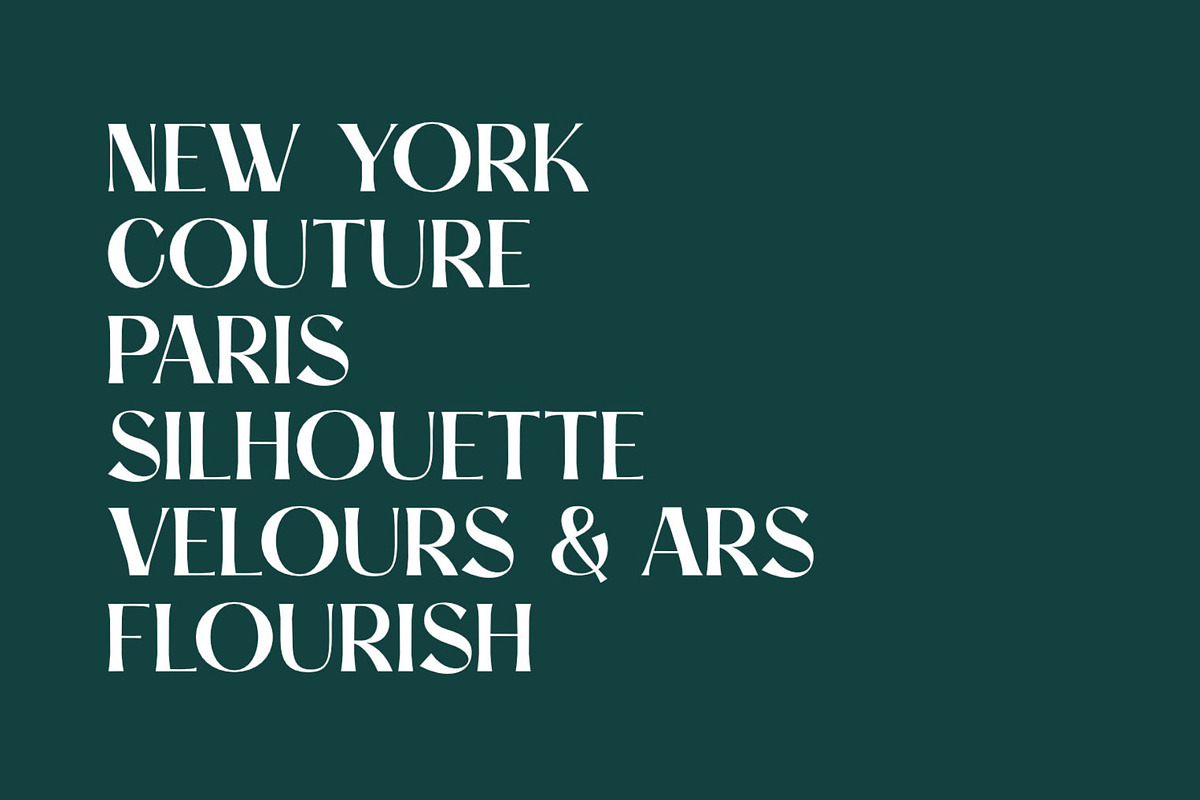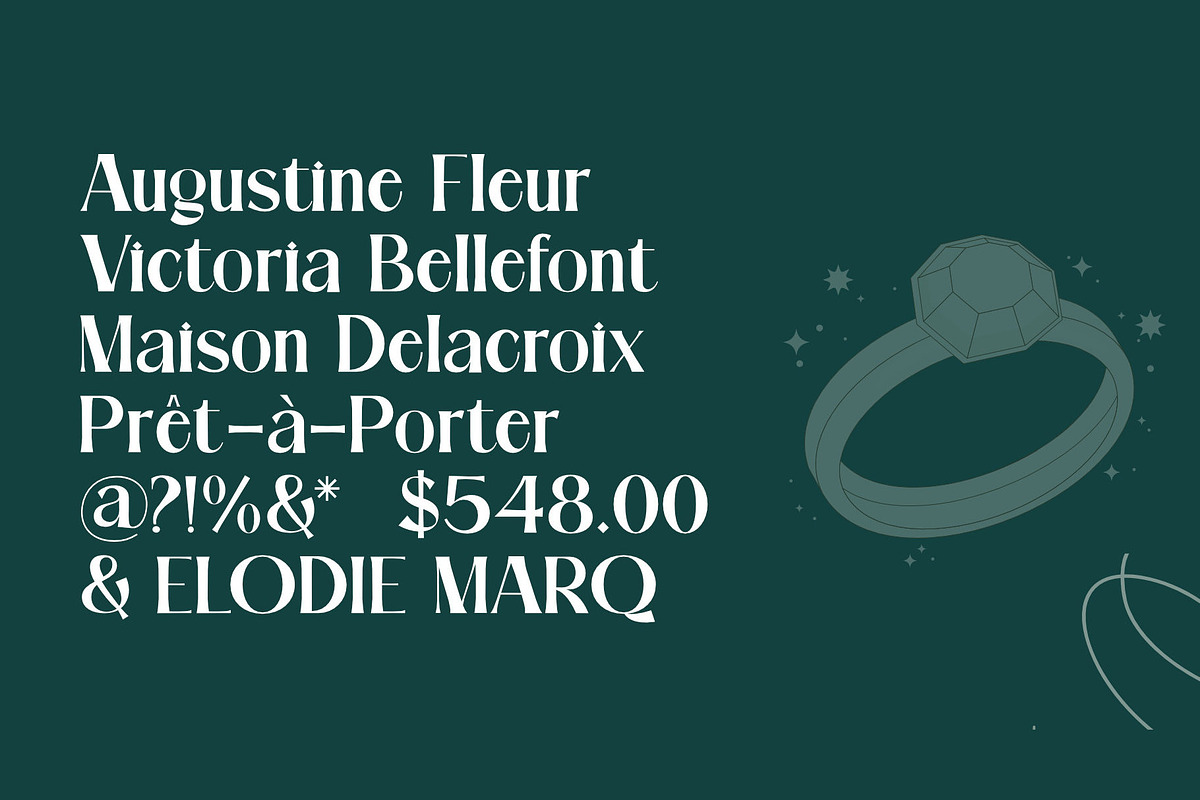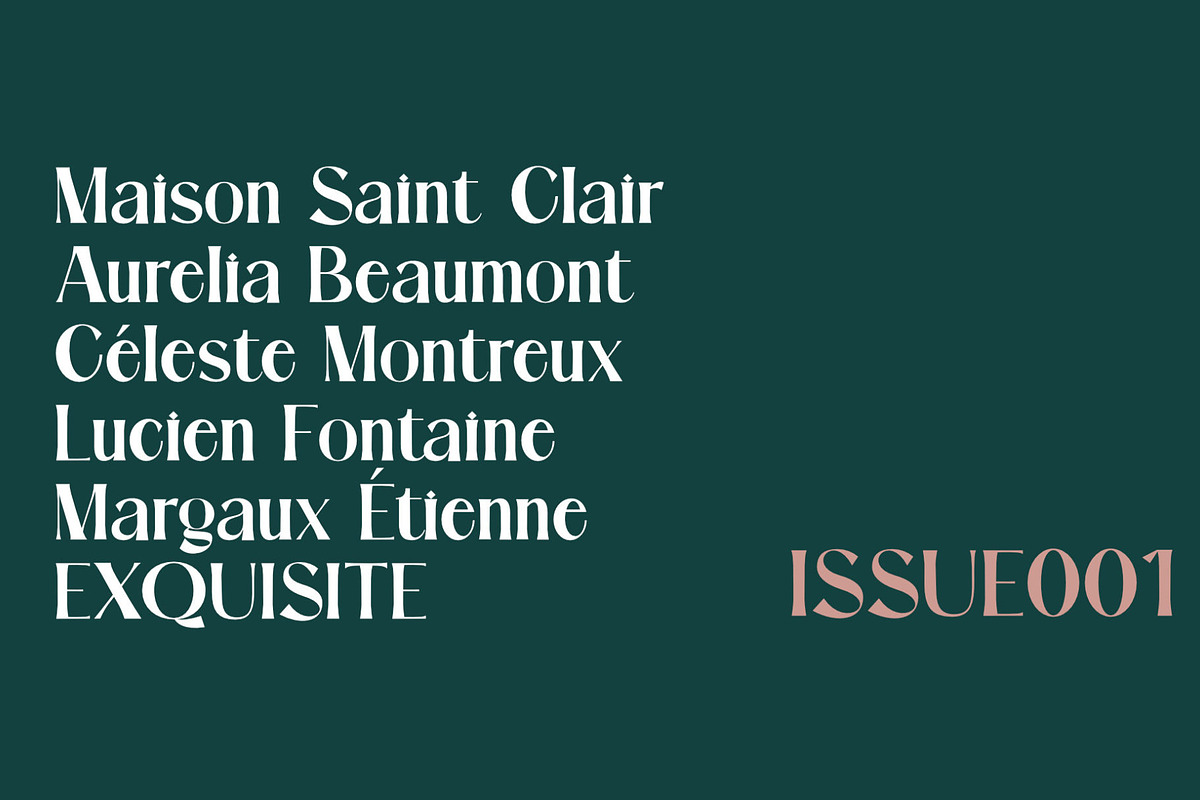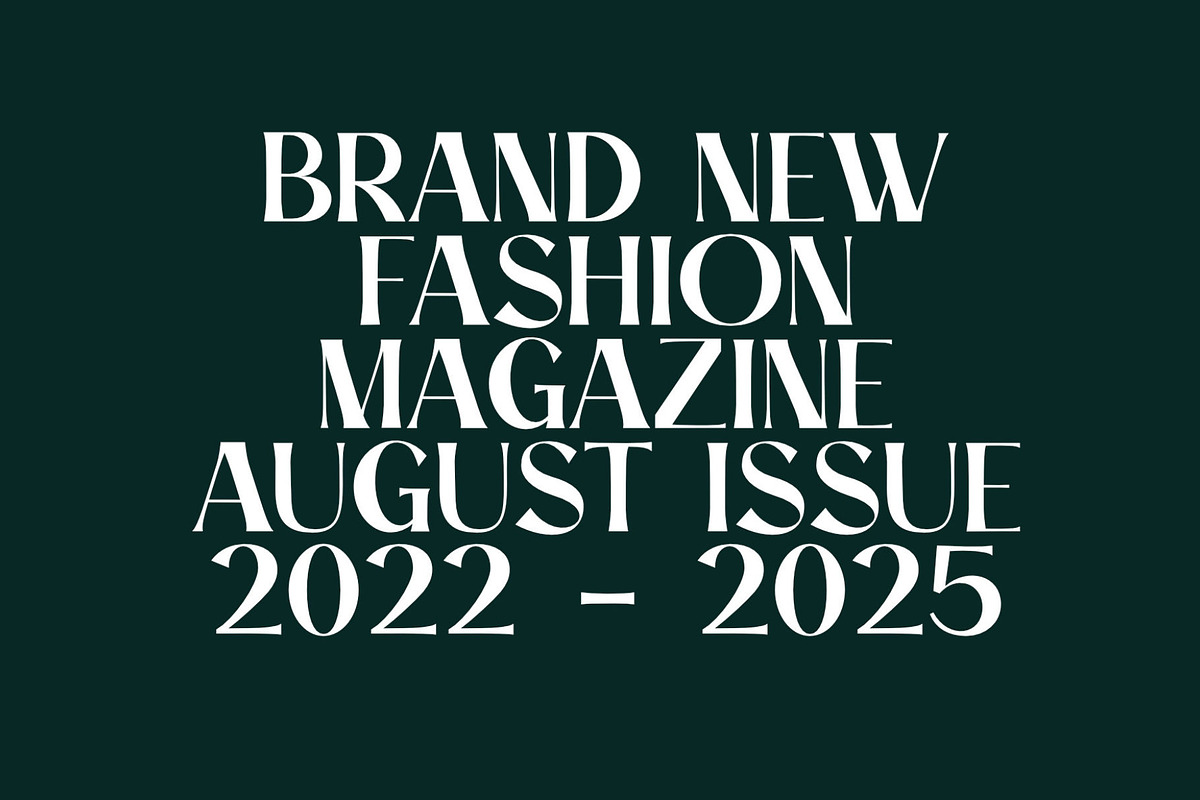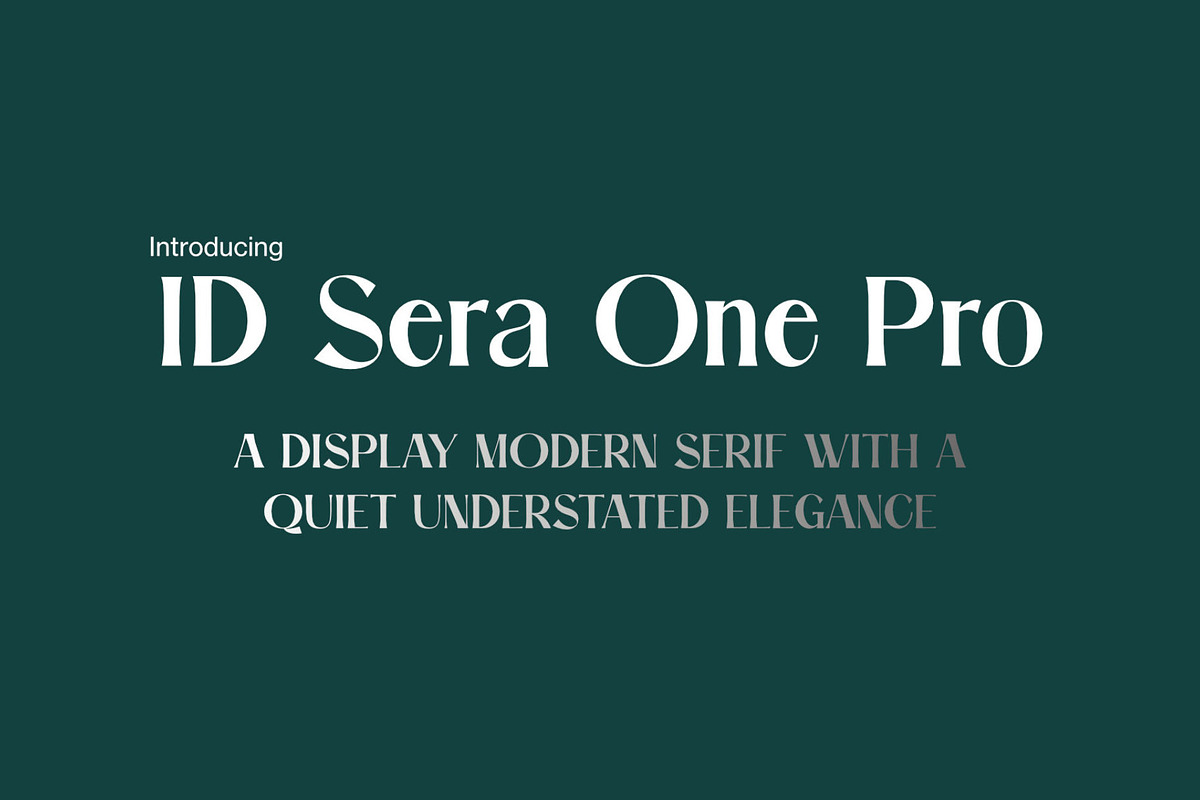
ID Sera One Pro - Playful Vintage
ID Sera One Pro is a smooth, confident, elegant serif featuring high contrast with vintage elegance. Sera One Pro is expressive with a touch of playfulness — but above all, it is sophisticated. It stands out with its unique style and functional features, making it a valuable addition to any designer's toolkit.